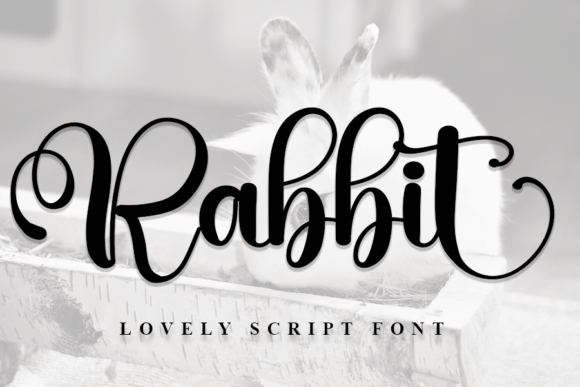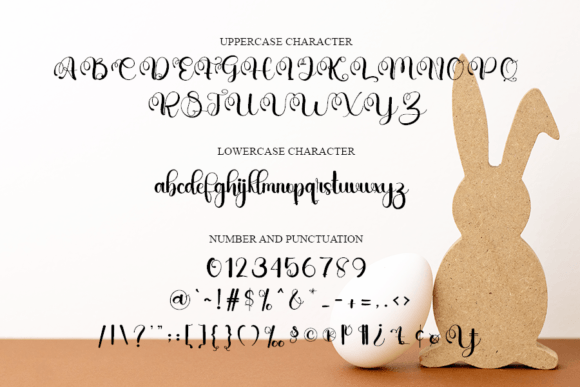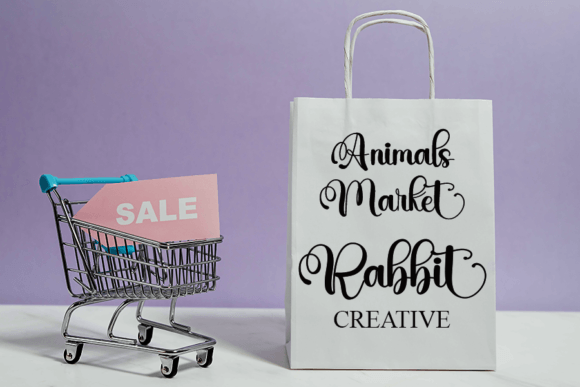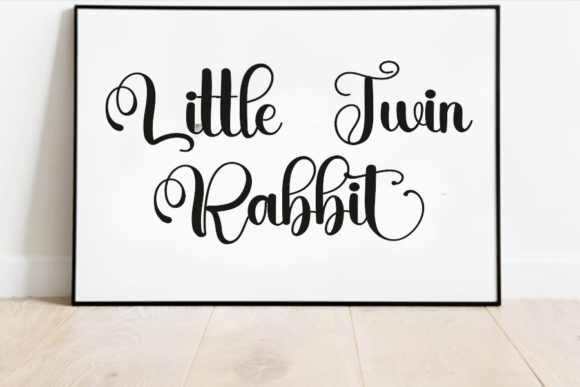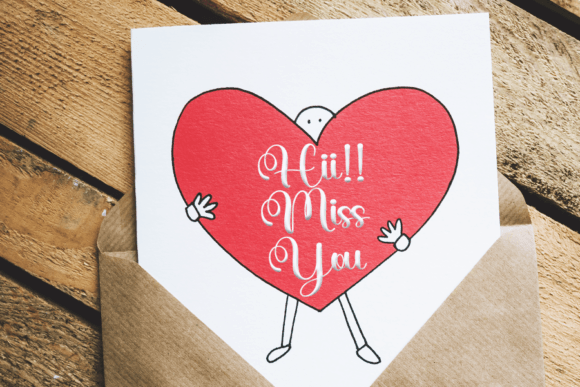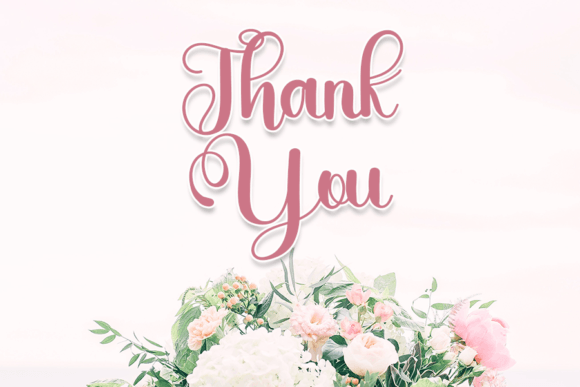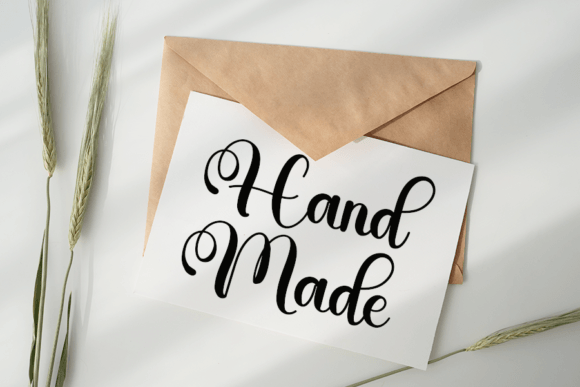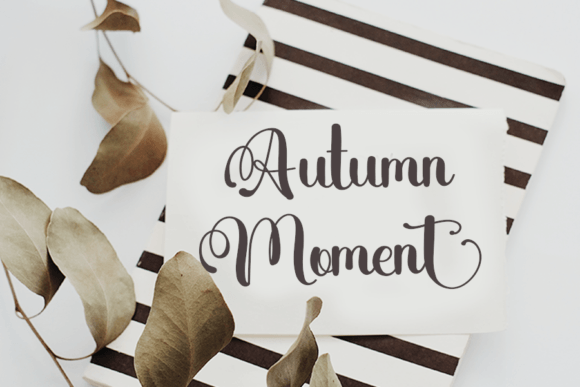
Rabbit Font
About Rabbit Font
“Rabbit” is a beautiful and refined handwritten font that exudes a sense of elegance and modernity. This font is an excellent choice for a wide range of design applications, making it perfect for logos, branding, invitations, stationery, wedding designs, social media posts, and much more.
The charm of “Rabbit” lies in its ability to convey beauty and refinement through its carefully crafted characters. Its handwritten style adds a touch of sophistication and class to your design projects, making them visually captivating and contemporary.
Whether you’re working on branding and logo design, creating elegant invitations, crafting stationery, designing wedding materials, or creating engaging social media posts, “Rabbit” is the font that can elevate your ideas and give them a touch of modern elegance.
In the world of design, creating a lasting and classy impression is essential for certain projects, and “Rabbit” excels in this regard. It ensures that your projects not only look visually appealing but also convey a feeling of refined beauty, leaving a memorable and modern impact on your audience.
In summary, “Rabbit” is more than just a font; it’s a design asset that effortlessly combines beauty and modernity. Its refined characters make it suitable for a wide range of projects, allowing you to create designs that are not only visually captivating but also exude an air of elegance and class. Embrace “Rabbit” and let its beauty and modern refinement enhance your creative endeavors, making them stand out with sophistication and contemporary flair.